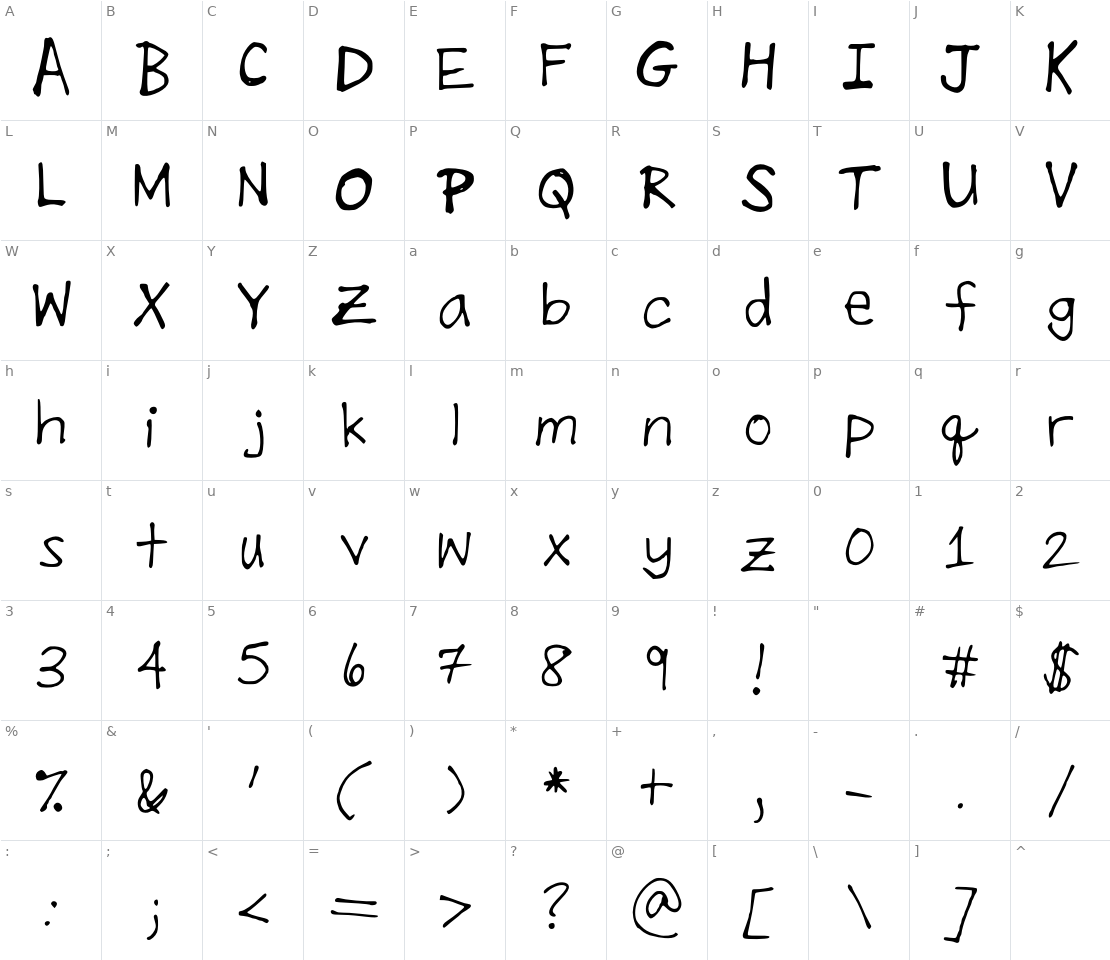
Rachel Print
by Rachel Ro
Rachel Print is a casual handwritten face by Rachel Ro that captures the look of someone's everyday print handwriting, slightly irregular and unhurried. The letterforms have a natural unevenness that keeps things feeling genuine rather than stylized, with just enough inconsistency to read as real pen on paper. A good fit for personal projects, notes, packaging, or anywhere you want type that feels like it was written by an actual human.